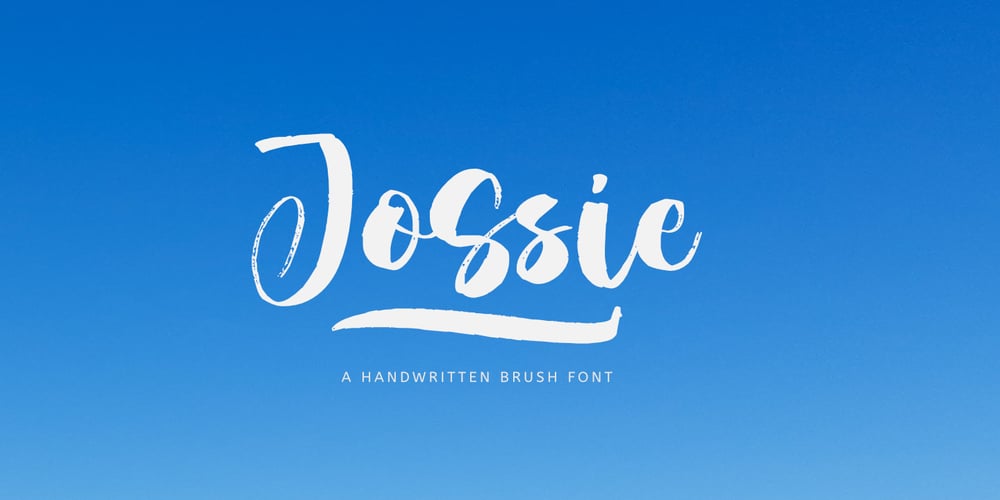
Jossie
Jossie font
Jossie Font Family was designed by Aldy Sidik, Nurul Hidayani and published by Olivetype. Jossie contains 1 styles and family package options. Jossie is a cool brush font. The style is a little bit rough, suitable for all of your logos, branding, social media, and crafty DIY projects.Features : Basic Latin A-Z & a-z Numbers Symbols, and punctuations Ligatures and swashes Multilingual support: from Afrikaans Albanian Catalan Danish to Dutch English Spanish Swedish Zulu. Accented Characters : ÀÁÂÃÄÅÆÇÈÉÊËÌÍÎÏÑÒÓÔÕÖØŒŠÙÚÛÜŸÝŽàáâãäåæçèéêëìíîïñòóôõöøœšùúûüýÿžß Thank you